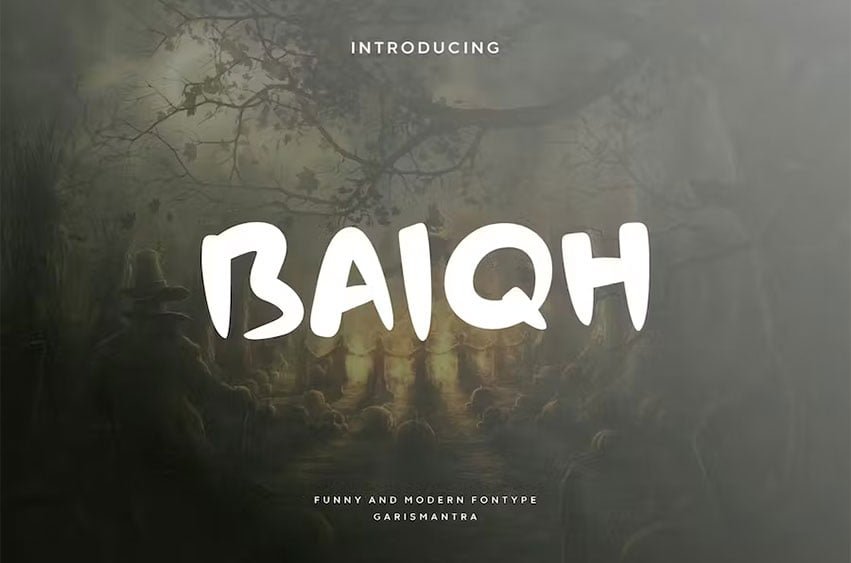
Baiqh Font is a fresh font, it looks a bit spooky but also fun at the same time. Baiqh really has a cheerful character with a playful curved shape, has a strong handwriting character. Baiqh will be very suitable for all designs, from branding designs, apparel, illustrations or logo designs. Grab it now and don’t miss something unique and different, cheers!